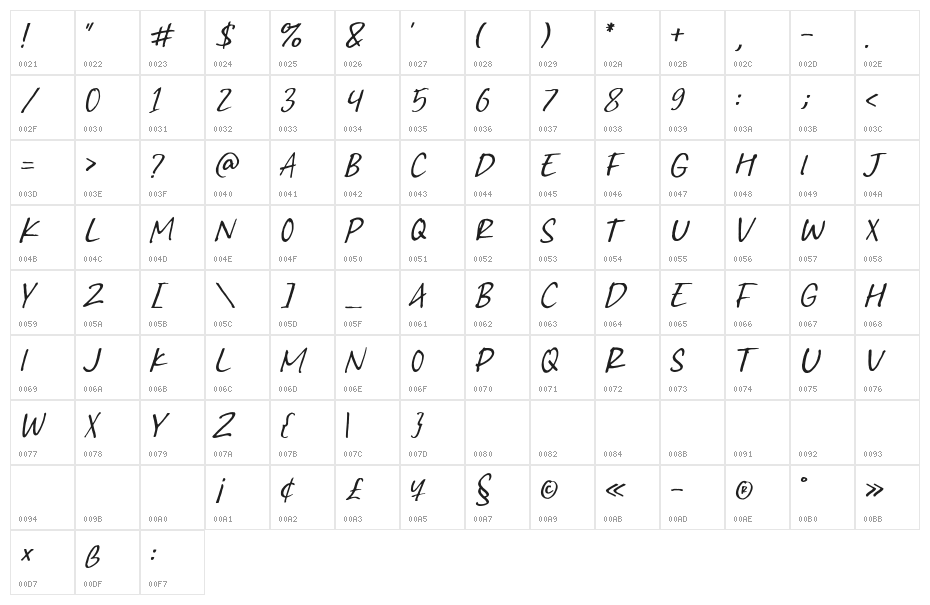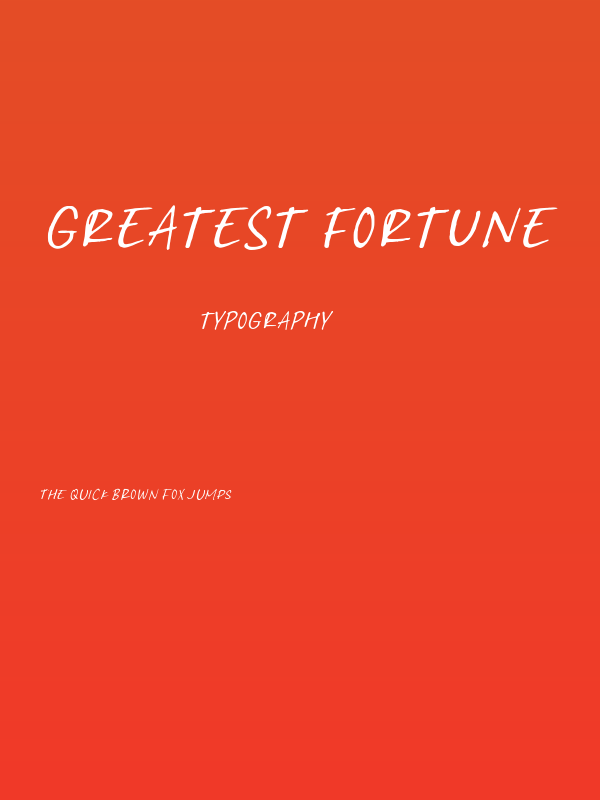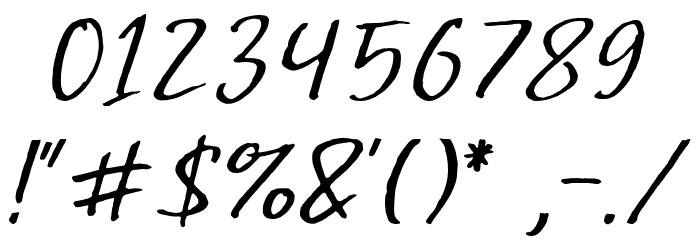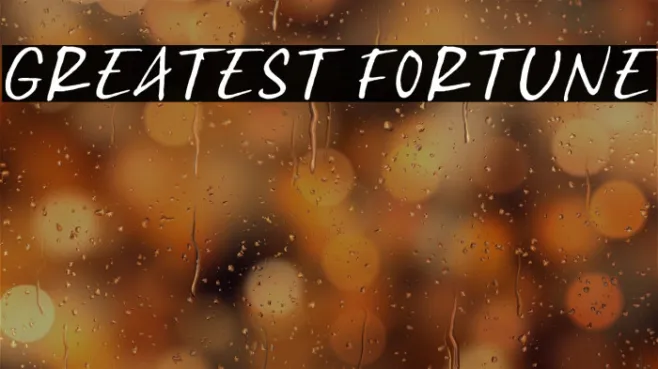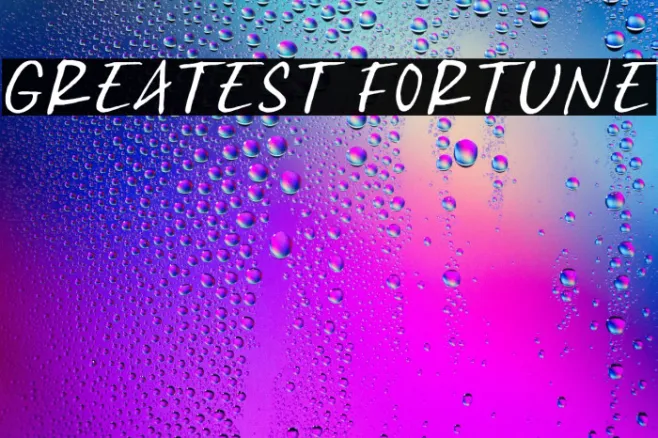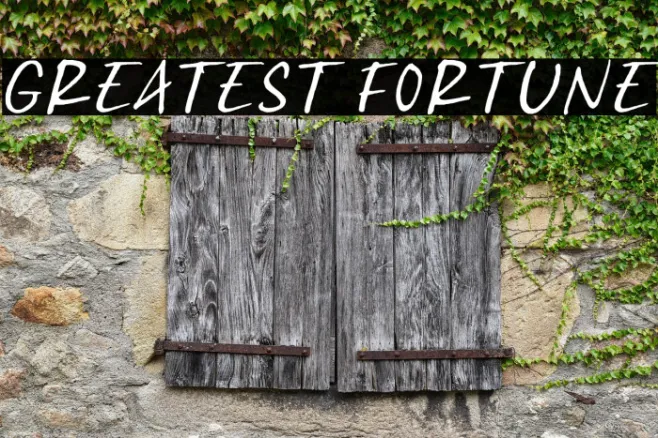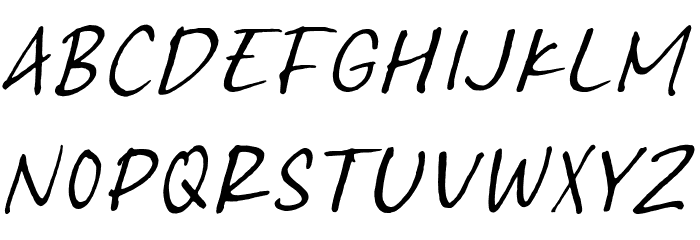
Greatest Fortune Font
Greatest Fortune Description
This font exudes a casual yet sophisticated handwritten style, characterized by its fluid and slightly slanted letterforms. The strokes are smooth and consistent, giving it a natural and personal touch. Each character is distinct, with a playful yet elegant flair, making it suitable for conveying warmth and personality. The uppercase and lowercase letters are well-balanced, and the numerals are clear and legible. Special characters maintain the same handwritten aesthetic, adding versatility to the font's use.
| Use Case | Logos, Invitations, Social Media Graphics |
| Proposed Projects | Ideal for personal branding, invitations, greeting cards, and social media graphics. |